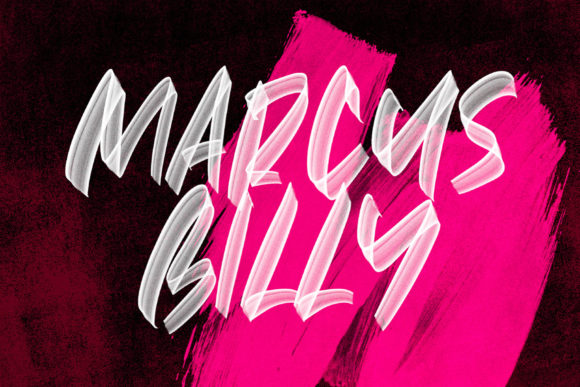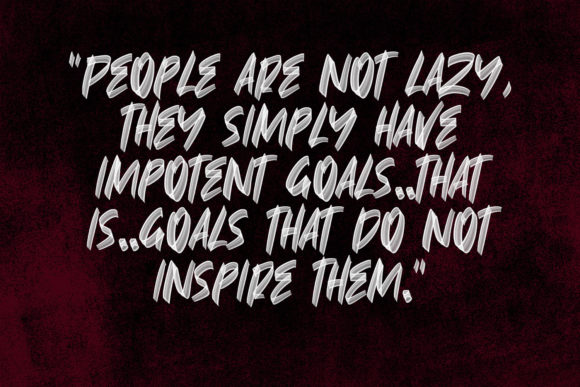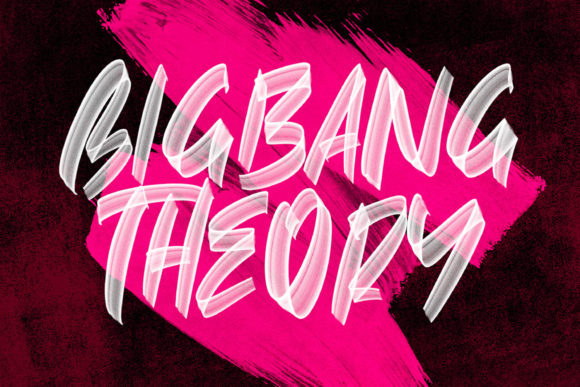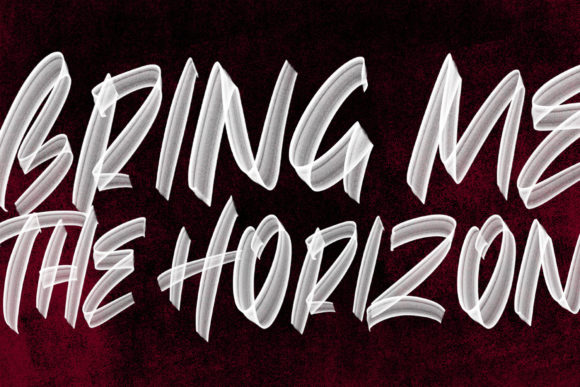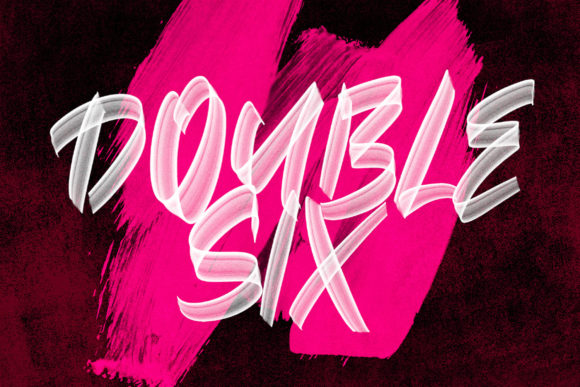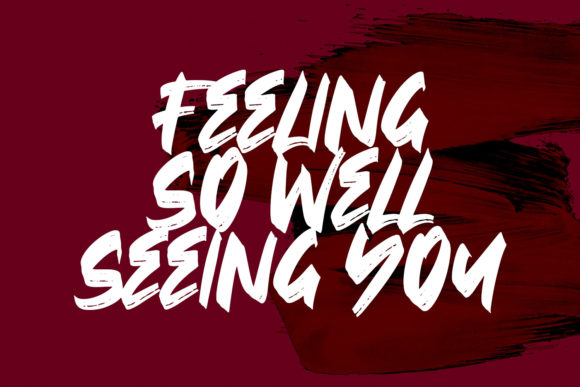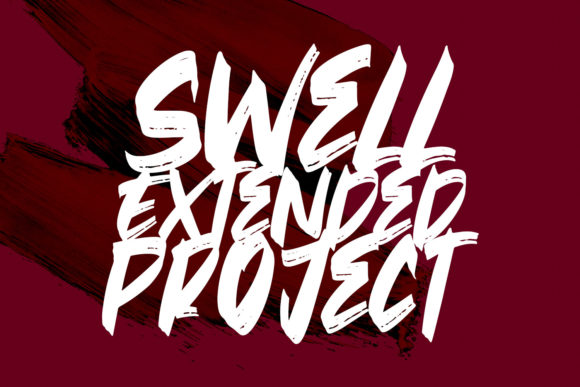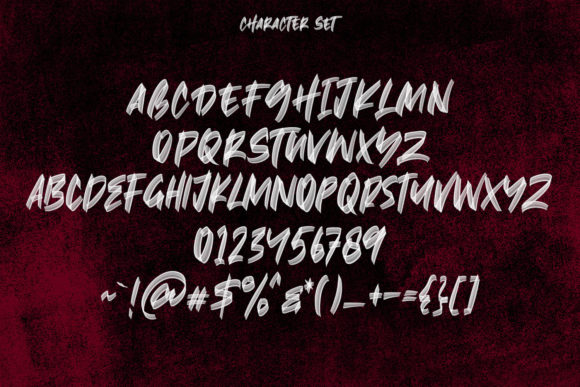
Overides Font
About Overides Font
Overides is a cool, paint brushed display font, featuring a street art vibe. This font is suitable for designs such as t-shirts, sportswear, logos, advertisements, clothing, and more.